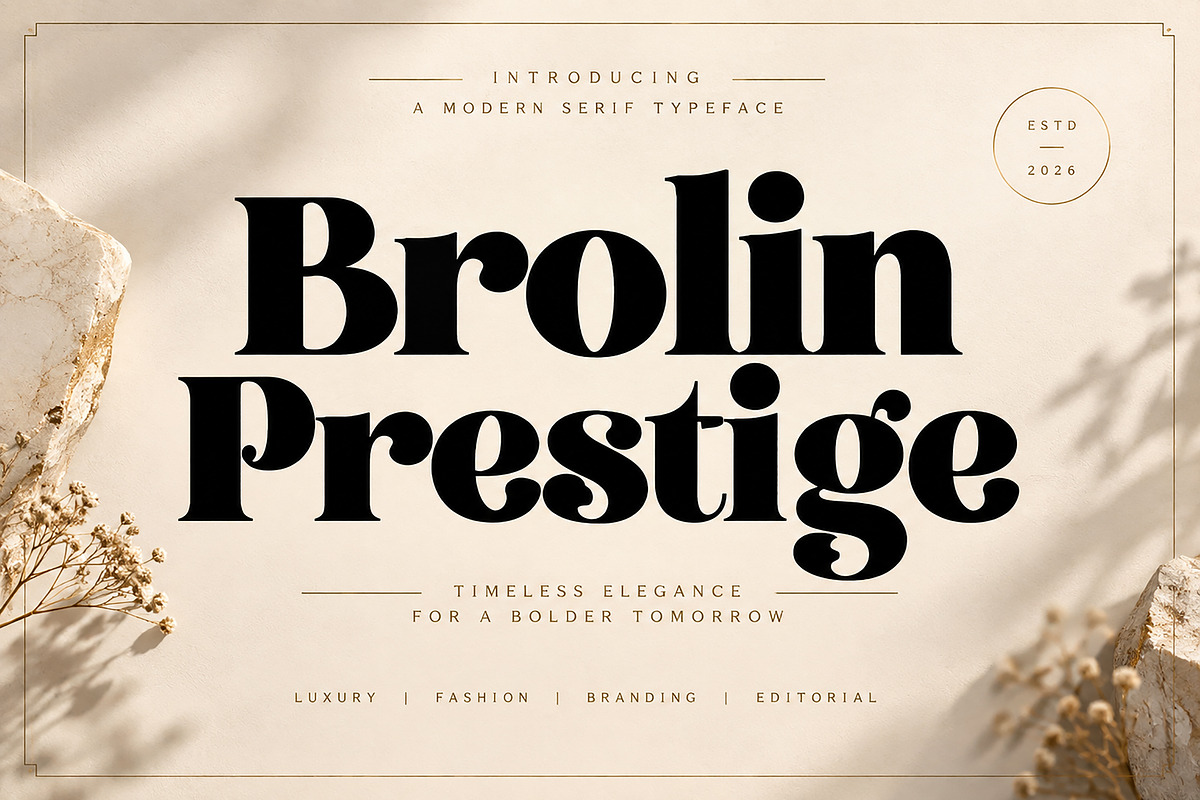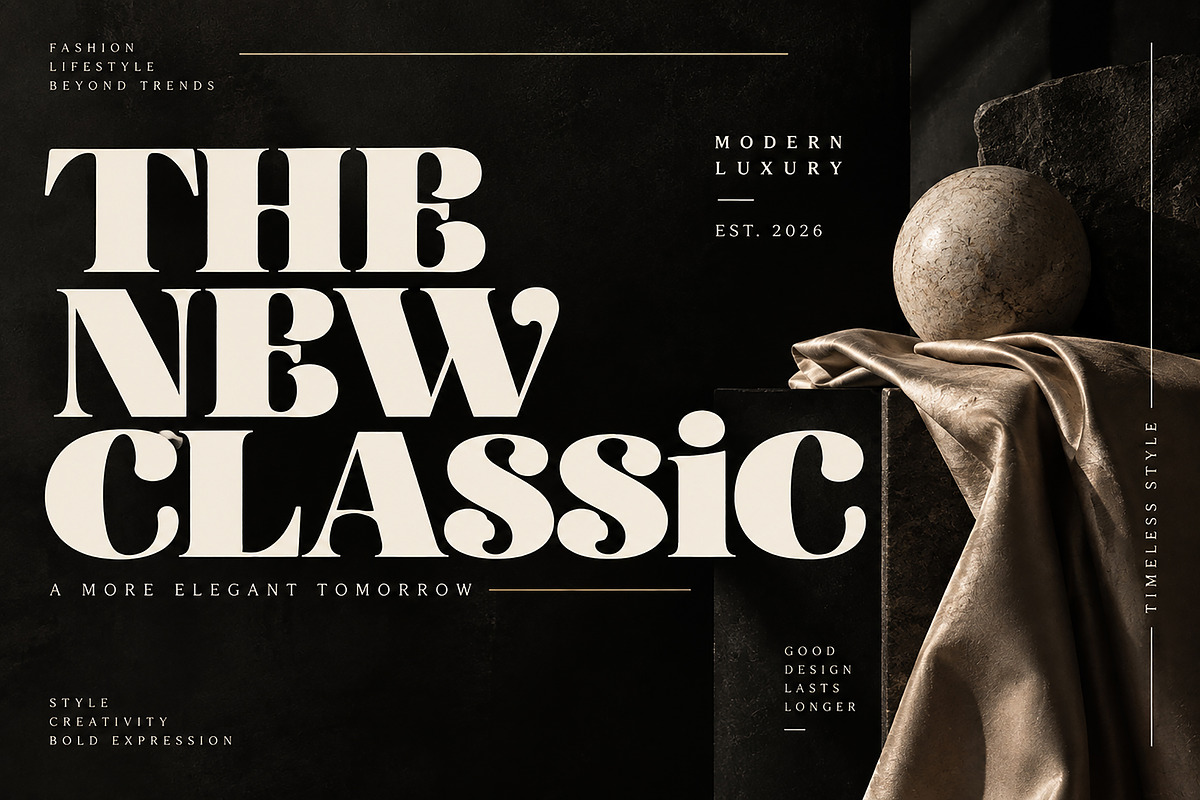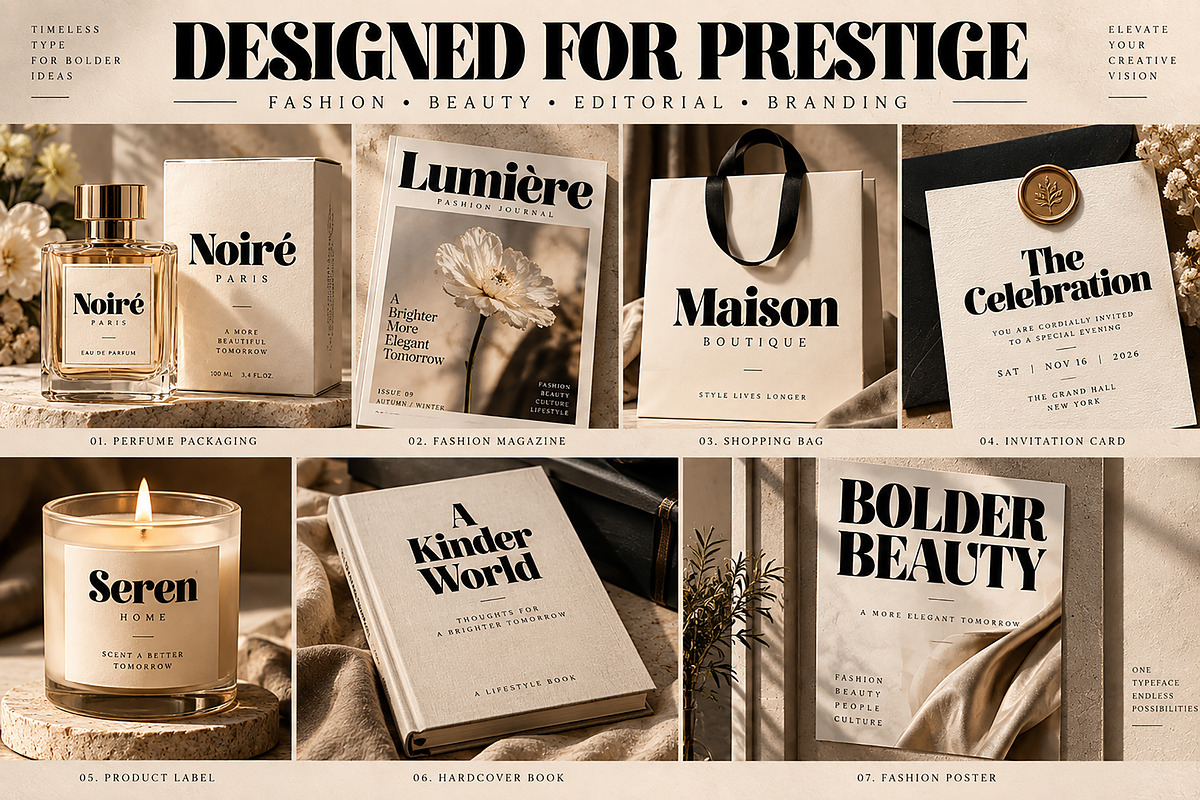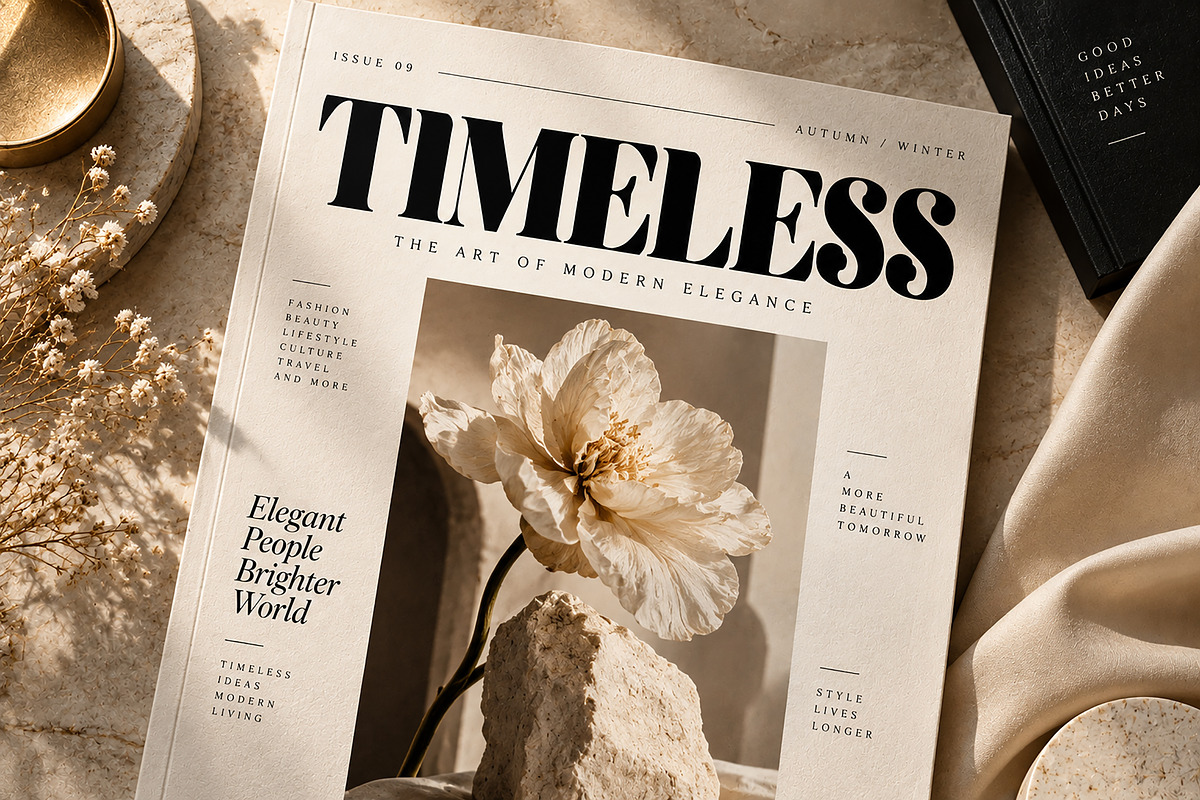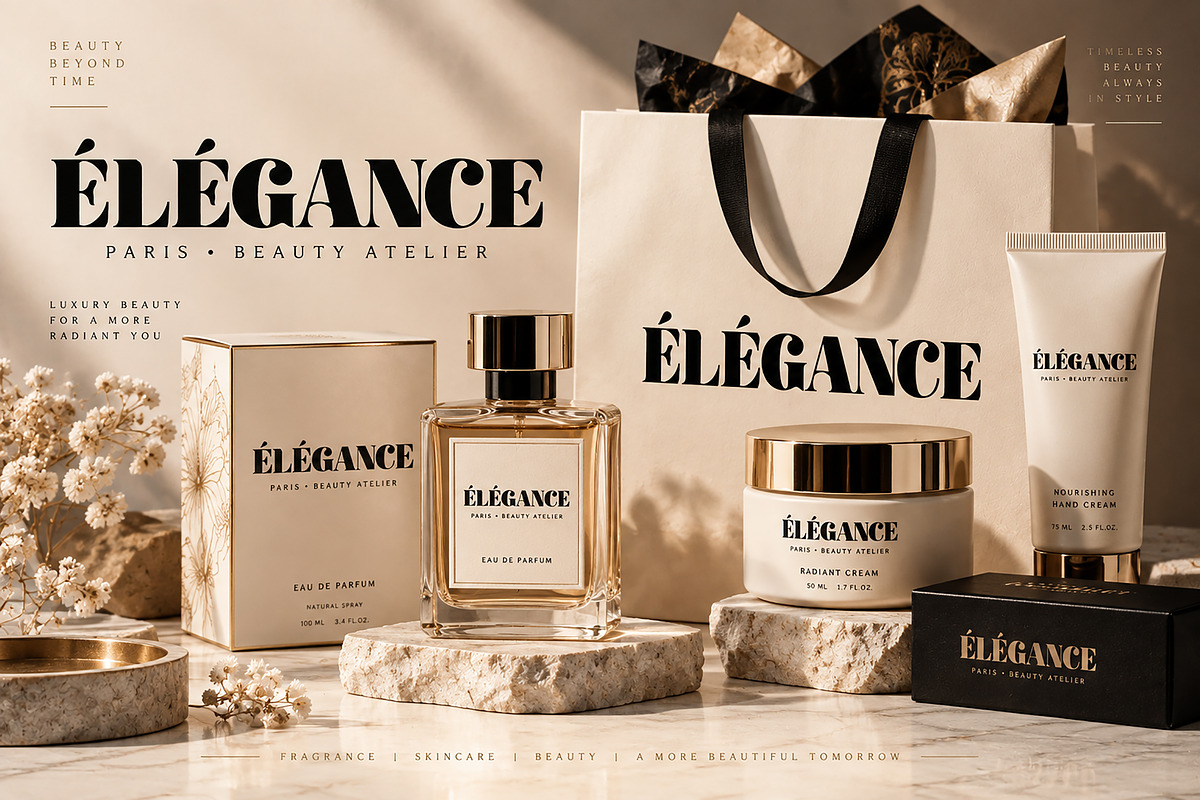
Brolin Prestige – Luxury Serif Font
Brolin Prestige – Luxury High Contrast Serif Font
Brolin Prestige is a sophisticated high-contrast serif typeface designed to bring a refined, luxurious, and editorial character to your creative projects. Its dramatic thick-and-thin strokes, elegant curves, and distinctive serif details make it an excellent choice for designs that need a bold yet sophisticated visual identity.
Perfect for fashion branding, luxury logos, beauty packaging, perfume labels, magazine covers, editorial layouts, wedding invitations, book covers, posters, product packaging, social media graphics, and premium advertising campaigns.
Brolin Prestige works especially well for projects where typography needs to become the main visual statement.
Luxury & Fashion Branding
Logo & Brand Identity
Beauty & Cosmetics
Perfume & Fragrance Packaging
Magazine & Editorial Design
Wedding Invitations
Book & Art Covers
Posters & Advertising
Boutique & Lifestyle Branding
Social Media Designs
Luxury Labels & Stationery
Elegant high-contrast serif style
Bold and sophisticated display appearance
Fashion-forward editorial character
Ideal for large headlines and branding
Suitable for both print and digital projects
Bring a sense of prestige, elegance, and timeless sophistication to your next design with Brolin Prestige.